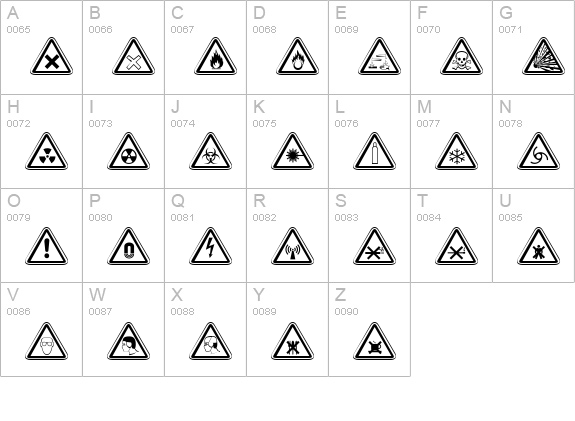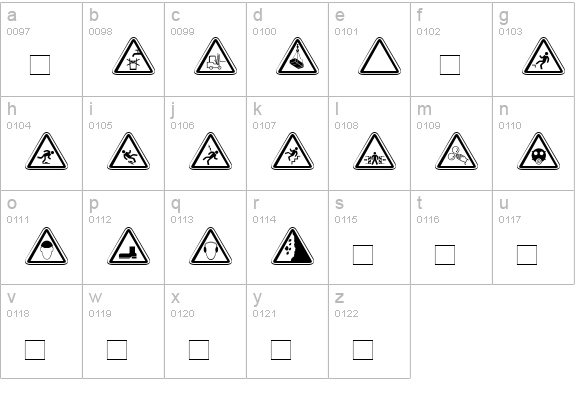
WarnSymbols4 Font Details
WarnSymbols4 is a bold and attention-grabbing font that is perfect for adding a touch of urgency to your designs. Whether you need to create warning signs, caution labels, or safety instructions, this font has got you covered. With its unique and eye-catching symbols, WarnSymbols4 will ensure that your message is not only seen but also understood. What sets WarnSymbols4 apart is not only its striking design, but also the fact that it is free to download. Yes, you read that right! This amazing font is freely available to download at FontsMarket.com. Now, you can enhance your design projects without worrying about breaking the bank. With WarnSymbols4, you can easily convey a sense of danger, caution, or urgency in your designs. From road signs to product labels, this font will add a professional touch to any project. Its clean lines and bold shapes make it highly readable, making sure that your message is delivered loud and clear. Whether you are a graphic designer, a signage maker, or simply someone who enjoys experimenting with fonts, WarnSymbols4 is a must-have in your collection. Its versatility and distinctiveness make it suitable for a wide range of applications. Plus, with its free availability on FontsMarket.com, you have no reason not to give it a try. So why wait? Download WarnSymbols4 today and take your designs to the next level. With its bold and impactful symbols, this font will make sure that your message stands out from the crowd. Don't miss out on this fantastic opportunity to enhance your designs for free. Get WarnSymbols4 now and let your creativity soar.